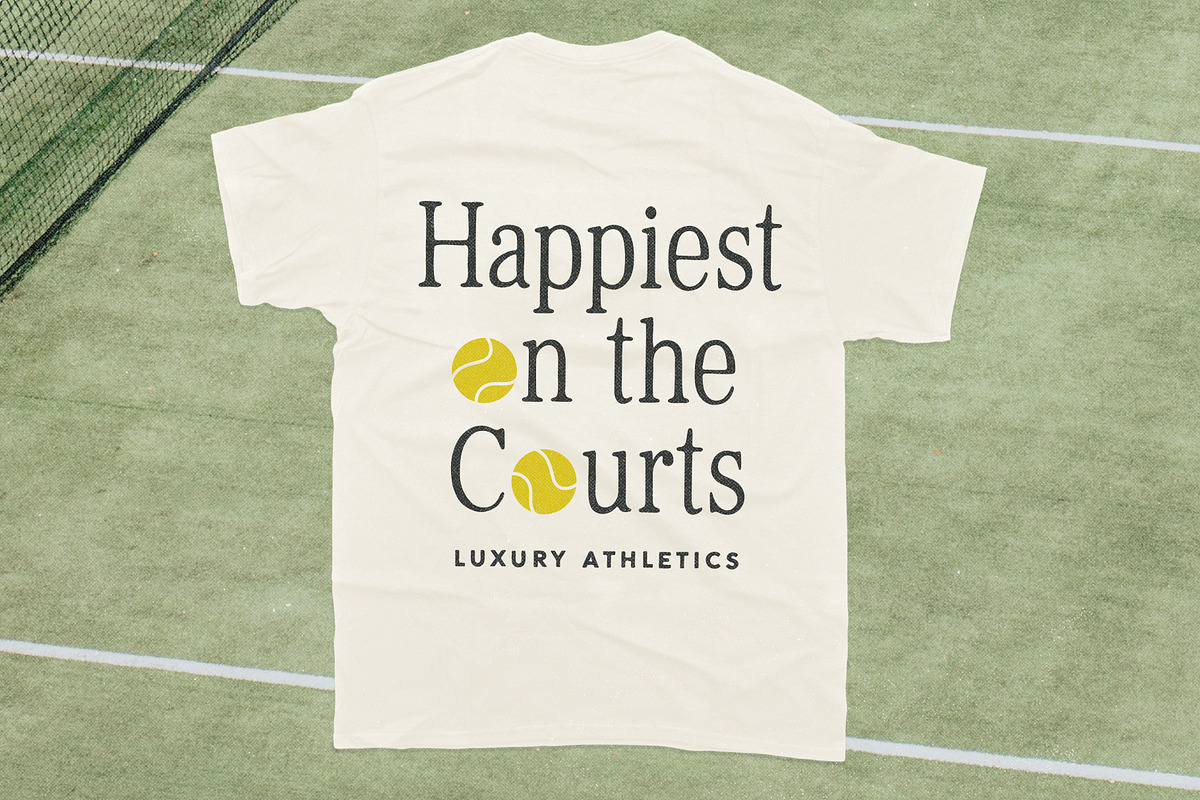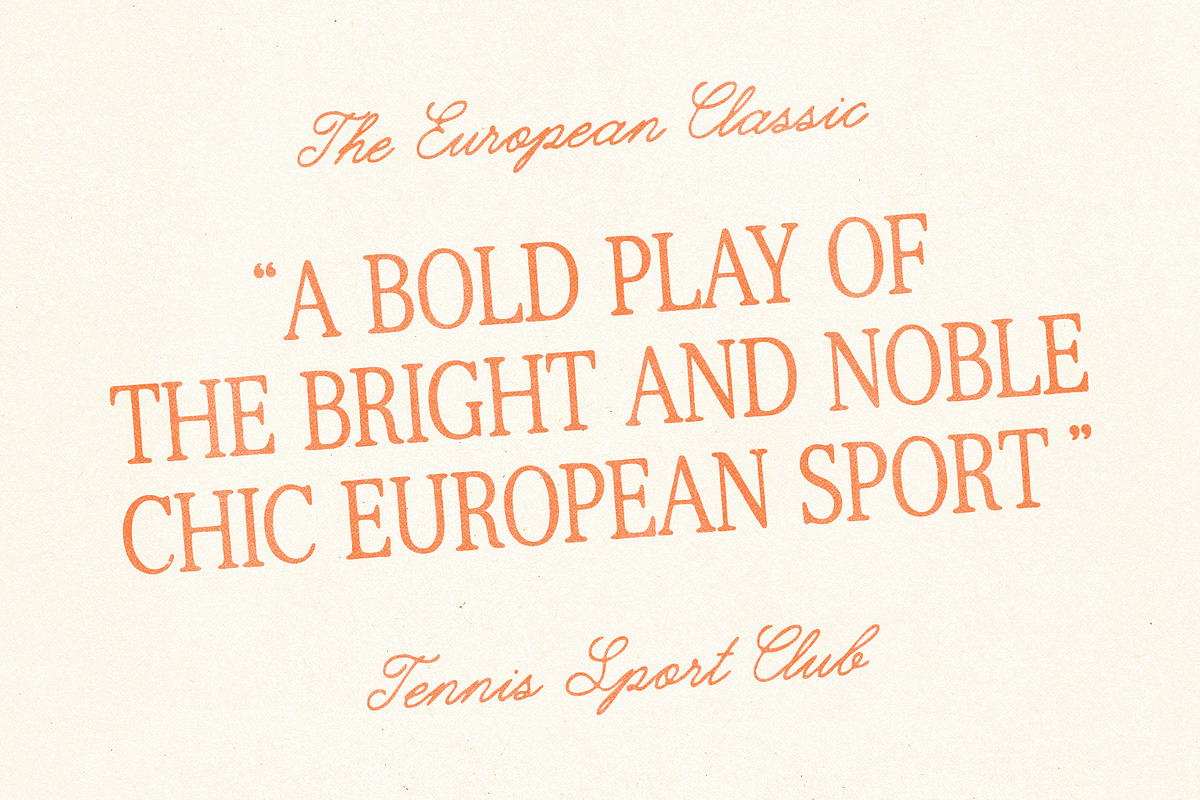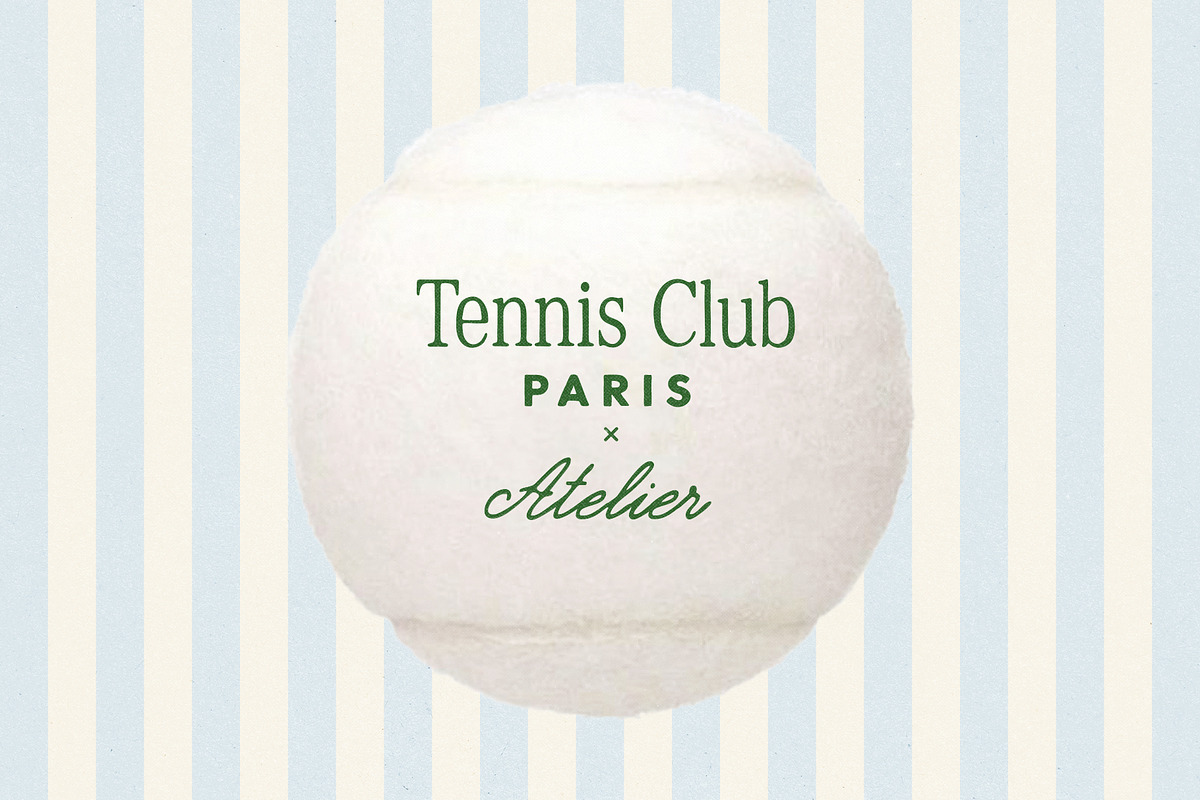
La Raquette Club Font
Après La Raquette Social Club is not just another handwritten font bundle – it’s a whole family of 6 typefaces that live together like members of a private club. Each font has its own voice, but together they create a system you can mix, match, and layer for endless variations.
The inspiration comes from countryside tennis clubs with their quiet elegance, striped blazers, and sun-faded posters on the clubhouse wall. That balance of formality and ease shaped these letterforms: classic in their roots, but drawn by hand, giving them the imperfections that make them feel alive.
This family is full of contrasts – refined but playful, traditional but contemporary, nostalgic but easy to use in a modern context. It carries a vintage spirit with a clear French chic accent, leaning into the old-money aesthetic without being stiff or predictable.
Perfect for projects where style matters: branding with character, logos that need sophistication with a twist, bold editorial posters, magazine notes, T-shirt lettering, or anything that deserves a touch of charm and wit. Après La Raquette Social Club is the kind of type that adapts effortlessly – from classy menus to playful headlines – and always feels at home.